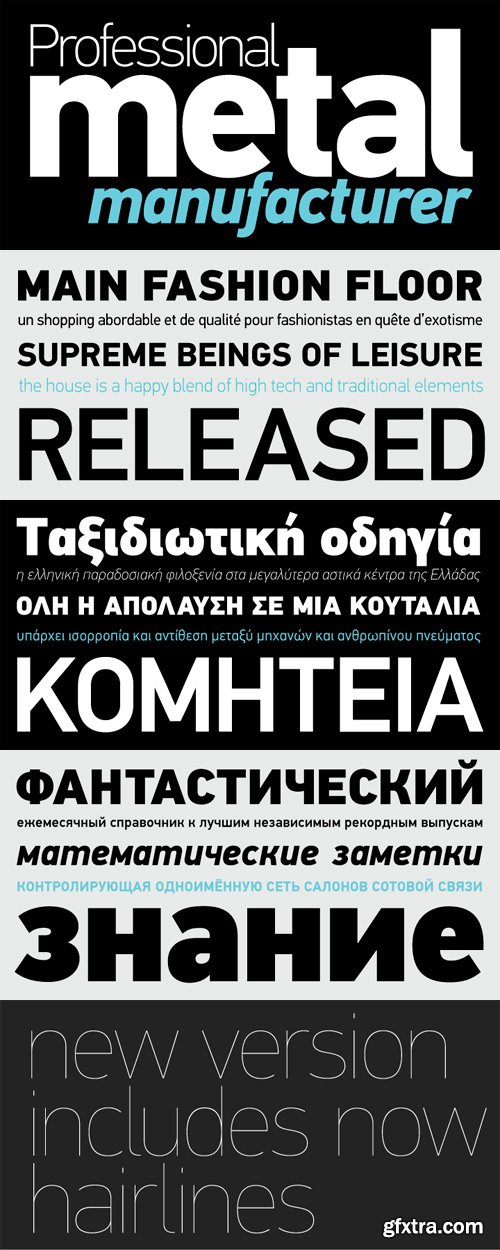
PF Din Text Pro Font Family
In 1936 the German Standards committee Deutsches Institut Normung (DIN) officially proposed DIN 1451 as the standard type of lettering to be used in the field of road traffic. The purpose of this standard was to lay down a style of lettering which is timeless and easily legible. Unfortunately, these early letters lacked elegance and were not properly designed for typographic applications. Ever since, several type foundries adopted the original designs for digital photocomposition. By early 2000, it became apparent that the existing DIN-based fonts did not fulfill the ever-increasing demand of complex corporate projects for more weights and support for additional languages.
Parachute® was set out to fill this gap by introducing the DIN Text series which, ever since, has become the most comprehensive and sophisticated set of DIN typefaces. It was based on the original standards but was specifically designed to fit typographic requirements. Completed in 2002, it was first released in 2003 and published in the award-winning catalog IDEA as a group of 4 separate families (original, condensed, compressed and a special display version). All families include 15 weights each, opentype features (small caps, etc) and extended support for all European languages based on Latin, Cyrillic and Greek.
The DIN Text Pro series, has lowercase ascenders that are higher than the capitals, varying letter proportions and italics that are not a mechanically-obliqued version of the regular weights, but rather true-italics. Each weight consists of an average 1280 glyphs.
The letterforms divert from the stiff geometric structure of the original and introduce instead elements which are familiar, softer and easier to read. The other two superfamilies Condensed and Compressed share the same attributes as the original.
With its vast array of weights, the extended language support, but most of all its careful and detailed design it has proved valuable to numerous design agencies for their complex corporate projects. Additionally, every font in these superfamilies has been completed with 270 copyright-free symbols, some of which have been proposed by several international organizations. This is a set of very useful daily symbols for packaging, branding and advertising. Symbols for public areas, environment, transportation, computers, fabric care and urban life.